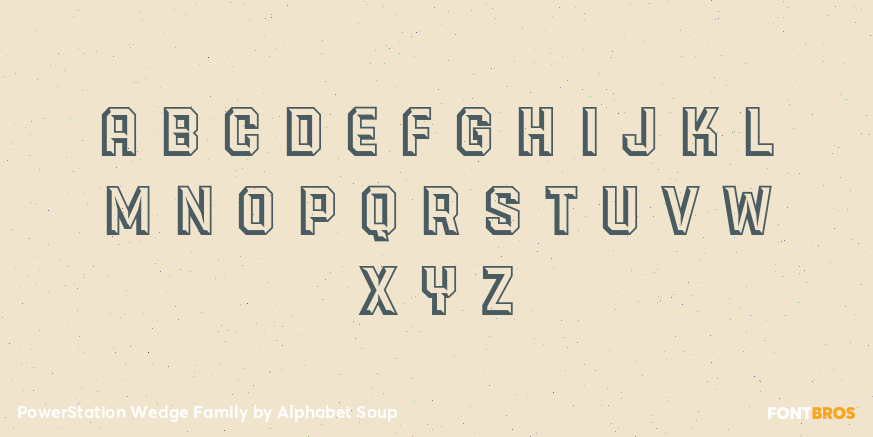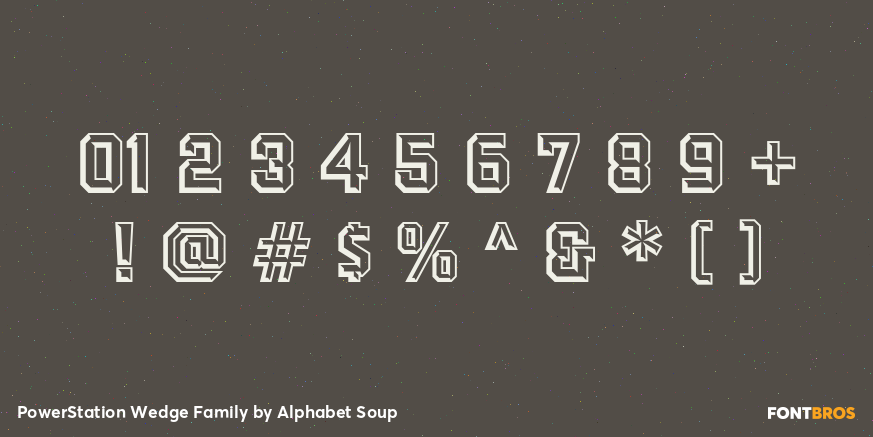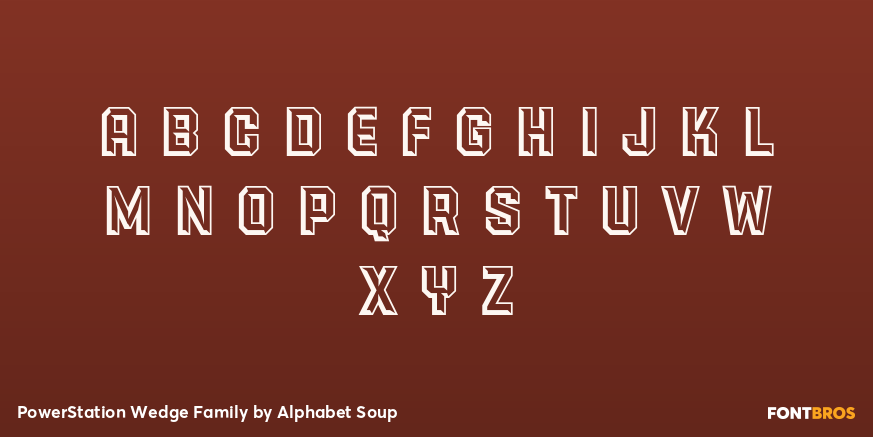
PowerStation Wedge Family
Buy NowPowerStation evolved while doing a project for Hershey's Chocolate. The chunky, faceted forms were initially inspired by chunks of the rich dark confection (mmmmm!). I named it "PowerStation" for it's strong industrial and moderne qualities. While designing the "Block" version I decided to round out the font by doing a "lighter" version-"Wedge"-and then a solid and an outline, and then reconfigure all of the above in "wide" versions.